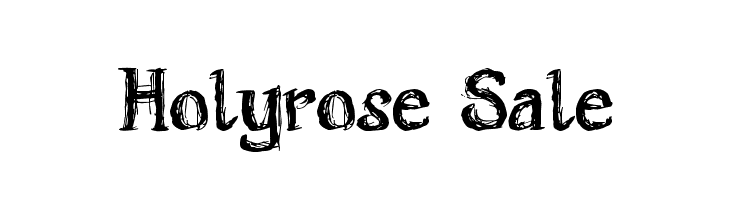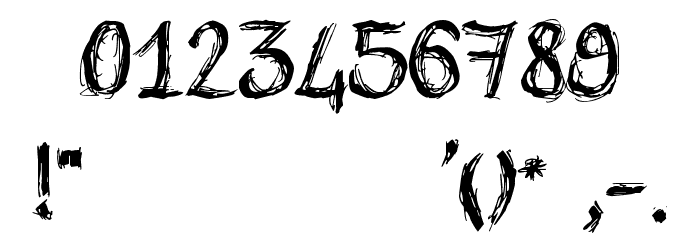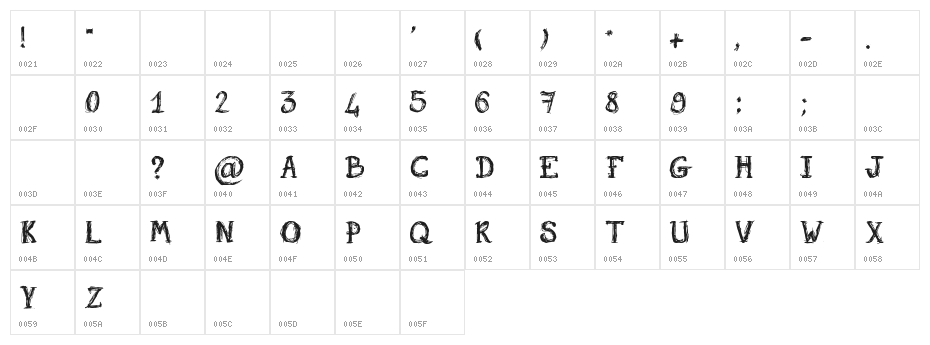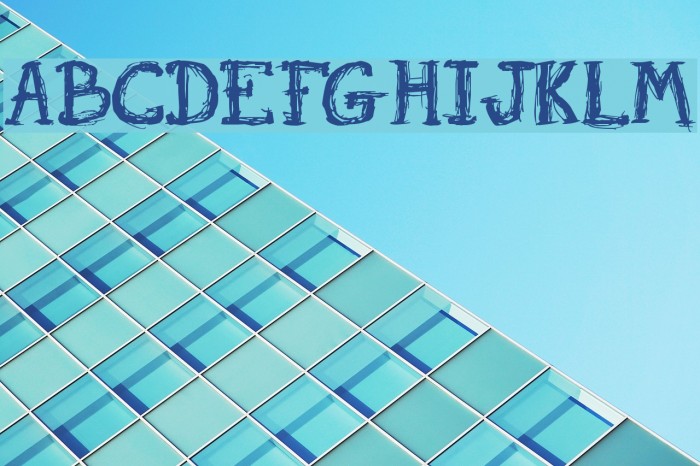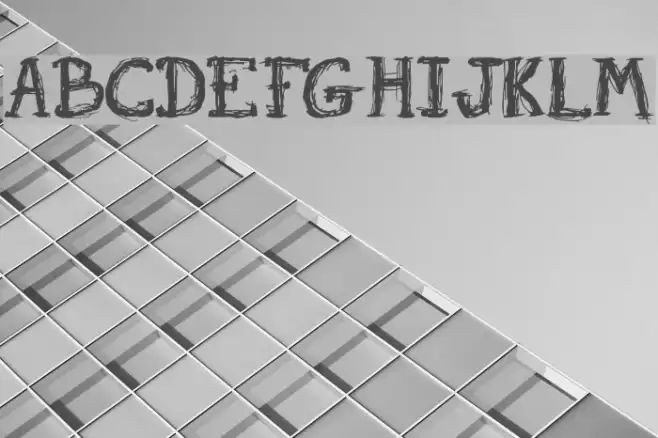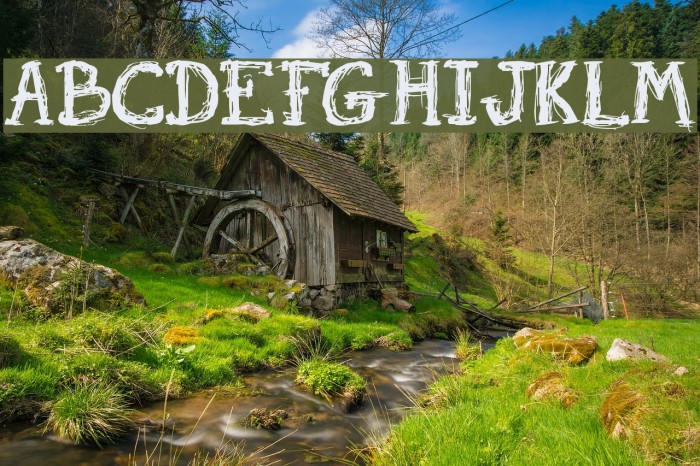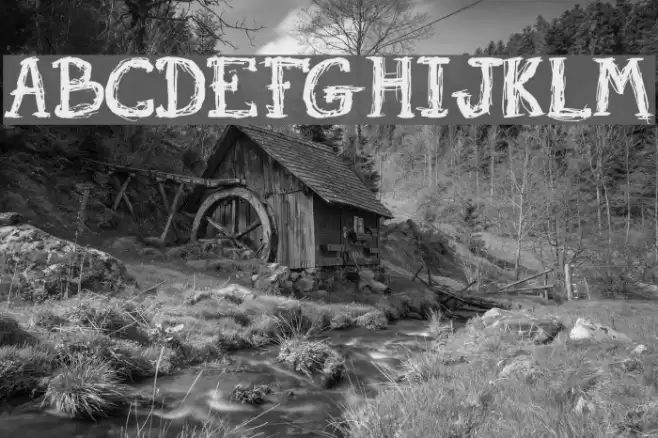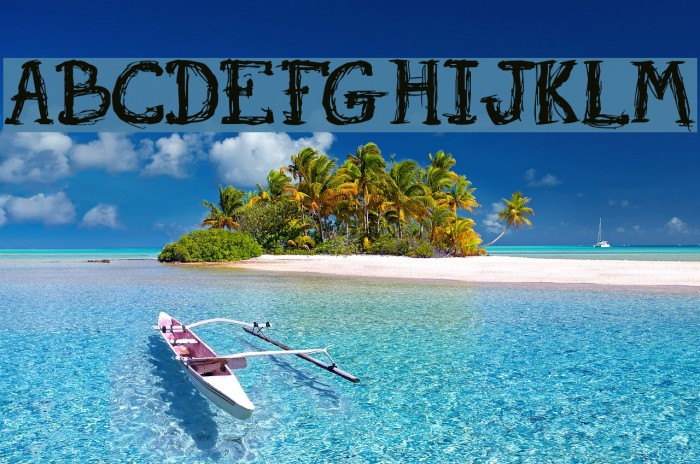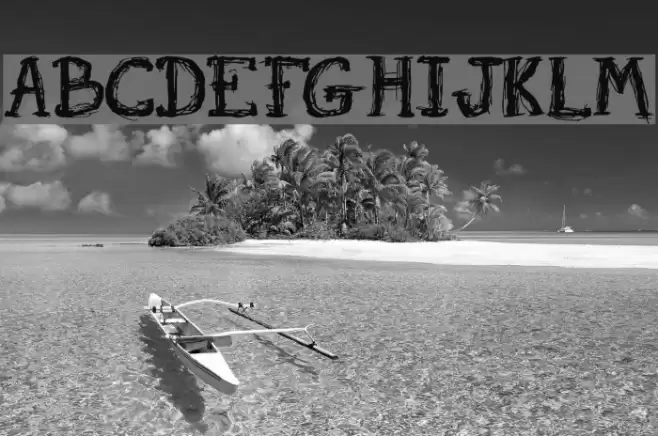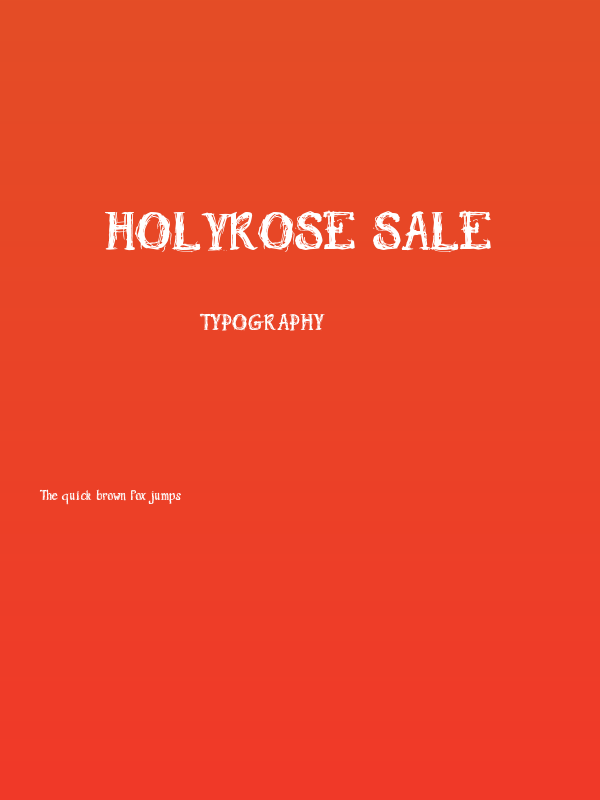
Holyrose Sale Font
Holyrose Sale Description
This font features a bold, textured style with a hand-drawn appearance, giving it a rugged and artistic feel. The characters are unevenly shaped, with rough edges and a sketch-like quality that adds a sense of movement and dynamism. The uppercase and lowercase letters maintain a consistent style, with the uppercase being slightly more pronounced. Numbers and special characters follow the same design, ensuring uniformity across all glyphs. This font's unique and expressive nature makes it stand out, ideal for creative and unconventional projects.